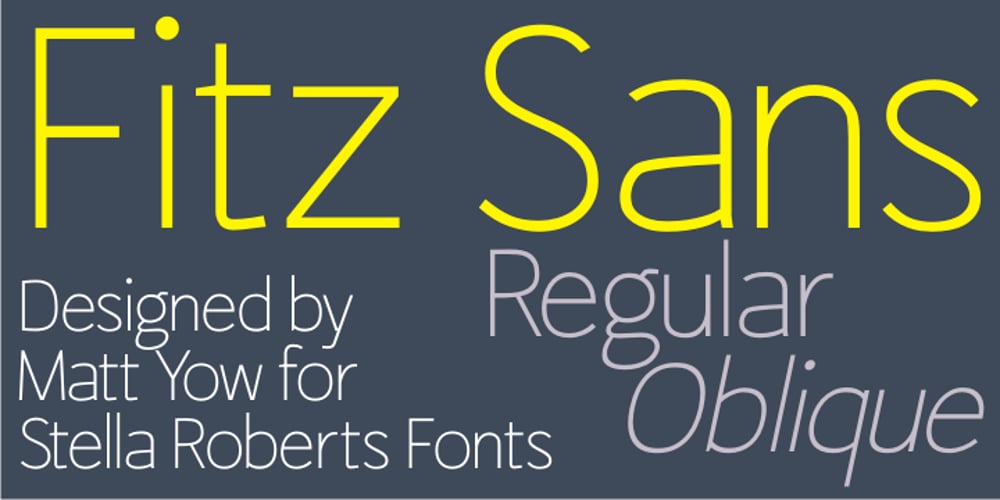
Fitz Sans SRF Font Family was designed by published by Stella Roberts Fonts. Fitz Sans SRF contains 2 styles and family package options. Fitz Sans SRF was contributed to the Stella Roberts Fonts project by graphic designer Matt Yow after receiving word of the project from Ray Larabie of Typodermic Fonts. A light, attractive text face, Fitz Sans SRF also lends itself well to headlines and titles. The font is available in both regular and oblique versions. The net profits from my font sales help defer medical expenses for my siblings, who both suffer with Cystic Fibrosis and diabetes. Thank you.